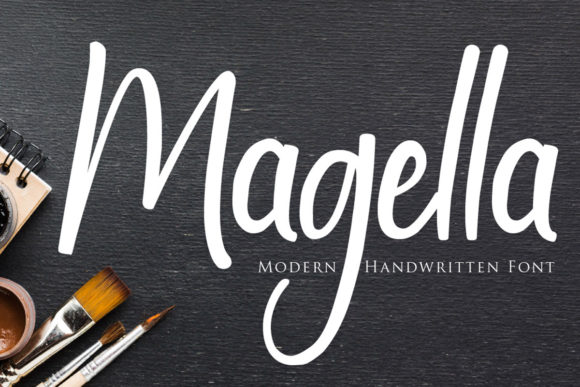
Journey into the Realm of Sophistication and Grace with Magella Font
Unleash the allure of Magella, a script font that dances with elegance and captivates with its modern charm. Designed with meticulous precision, Magella's flowing curves and refined strokes evoke a symphony of sophistication, inviting you to create visual masterpieces that leave an indelible mark.
As a script font, Magella possesses an inherent beauty that adds a touch of artistry to any design. Its modern aesthetic exudes a timeless appeal, while its elegant lines bring a sense of refinement and grace to your projects. Whether you're crafting logos, branding, invitations, stationery, wedding designs, or social media posts, Magella elevates your creations with an air of distinction.
Immerse yourself in the versatility of Magella, a font that adapts effortlessly to a wide range of design styles. Its adaptability shines in logos, where it lends a touch of sophistication and memorability. Branding projects come alive with Magella, as its elegant strokes create a lasting impression that resonates with your audience.
For invitations and stationery, Magella adds a personal touch that reflects the significance of your occasion. Its flowing curves and refined details add a layer of charm that transforms ordinary invitations into works of art. Wedding designs reach new heights of elegance with Magella, as its delicate lines intertwine to create a romantic and enchanting atmosphere.
Step into the digital realm with Magella, a font that captivates on social media platforms. Its modern design and eye-catching appeal make it the perfect choice for creating engaging posts that capture the attention of your followers. Whether you're sharing inspiring quotes, promoting your business, or simply connecting with your audience, Magella adds a touch of sophistication that sets you apart.
With Magella, you hold the key to unlocking a world of creativity and expression. Its endless possibilities and effortless beauty await your imagination. Embrace the allure of Magella and transform your designs into captivating masterpieces.